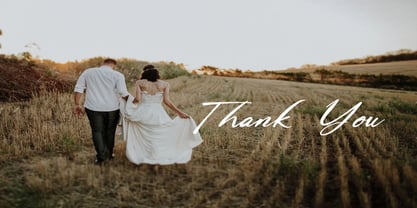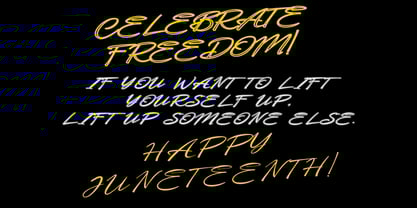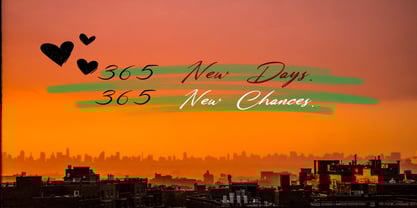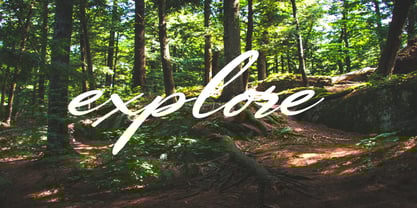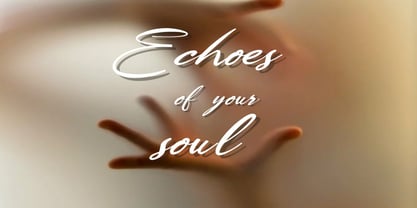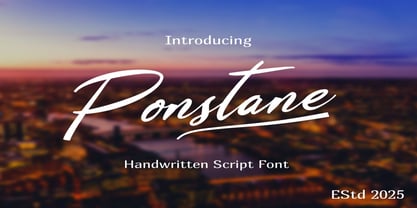
Ponstane
by Dream Font
The Ponstane Font Family was designed by Paul Clarke and published by Dream Font. Ponstane contains 1 styles.
Ponstane is a modern, monoline handwritten script font. Whether you’re using it for crafts, digital design, presentations, or making greeting cards, this font has the potential to become your favorite go-to font, no matter the occasion!
Ponstane is a handwritten script font with a brushed texture.
This font is perfect for quotes, shirt designs, websites, branding, children’s designs, blogs, logos, invitations, and more